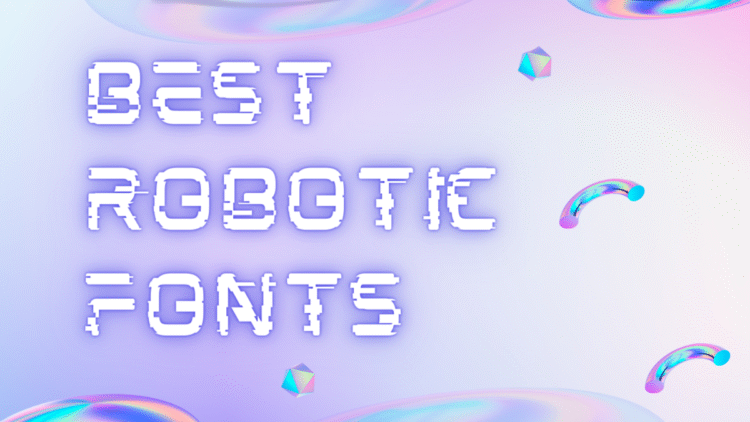
Are you eager to design projects with a futuristic twist? If so, it’s time to explore the world of the best robotic fonts.
Just like their name suggests, robotic fonts boast sharp, technological features and bold letterforms, giving them a cutting-edge and contemporary feel. They’re perfect for adding a modern touch to any design, especially those revolving around science, technology, and evolution.
We’ve carefully reviewed each font ourselves, considering factors like features, functionality, strengths, weaknesses, and ideal users. This way, you can confidently choose the best option for your personal or commercial projects.
What Exactly is a Robotic Font?
Robot fonts, also known as robotic fonts, draw inspiration from technology and science fiction to create a futuristic aesthetic. They’re perfect for projects related to technology, space, or science fiction, as well as themes like cyberpunk, futurism, and space-age designs.
1. Vandroit – Techno Display Robotic Font
Meet Vandroit – the coolest robotic font in town! This font is like a robot writing with style. It’s smooth, elegant, and flows like a river. With its unique blend of letters and swirly embedding, Vandroit adds a modern touch to any design project.
2. Wantech – Modern Tech Robotic Font
Say hello to Wantech – the font of the future! Wantech is not just any font; it’s a sleek, elegant, and futuristic creation that adds a unique touch to your design projects.
3. Futuristic Display Robotic Font
Futuristic Display Font! This font is the epitome of modernity and authenticity, perfect for all your professional needs and product branding endeavors. Whether you’re working on quotes, logos, blog headers, posters, invitations, or stationery, this font has got you covered.
4. NCL Kamver – Modern Futuristic Space Font
Get ready to level up your creativity with NCL Kamver – a font like no other! This modern cyberpunk futuristic techno mecha font brings a whole new vibe to your designs, making them truly unique. Whether you’re working on a website, poster, logo, or any other project, NCL Kamver adds that extra touch of innovation and sophistication.
- 4 Styles: Regular, Slanted, Outline, Outline Slanted
- Contains 358 Glyphs
- Alternates for added variety
With NCL Kamver, the possibilities are endless. Elevate your designs and stand out from the crowd with this futuristic space font!
5. CYGUN Variable Robotic Font
Meet CYGUN – the font of the future! CYGUN is a Variable Font that creates a modern futuristic hi-tech atmosphere and style. With its Variable Controls for Weight, Width, and Italic Axis, you have the power to customize your text exactly the way you want it.
CYGUN is based on a Font Family of 18 styles, including Light, Bold, Condensed, and Expanded, allowing it to look good and different as both Headline and Text. Whether you’re working on projects related to robots&androids, cyberpunk, hi-tech, future, virtual reality, space, army, games, and more, CYGUN is the perfect choice.
6. Nevia Variable Robotic Font
ntroducing Nevia – the font that brings a modern futuristic hi-tech vibe to your designs! Nevia is a Variable Font with customizable Weight and Width controls, allowing you to create the perfect look for your projects.
Based on a Font Family of 10 styles, including Light, Bold, Condensed, and Expanded, Nevia is versatile enough to shine as both a Headline and Text font.
9. Skyrox – The Ultimate Robotic Font
Storm Fighter is not your typical font. It features a slanted freestyle blackletter design that blends together elements of gothic, mystery, and classic styles. It represents courage and progressiveness, making it perfect for a wide range of creative projects. If you’re looking for the best tattoo number fonts, look no further.